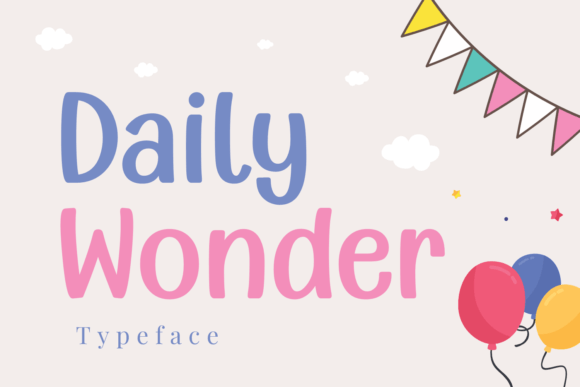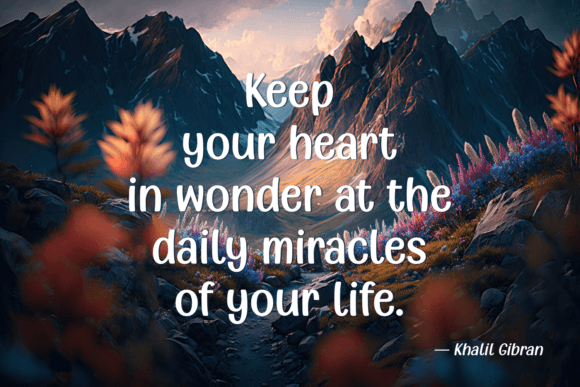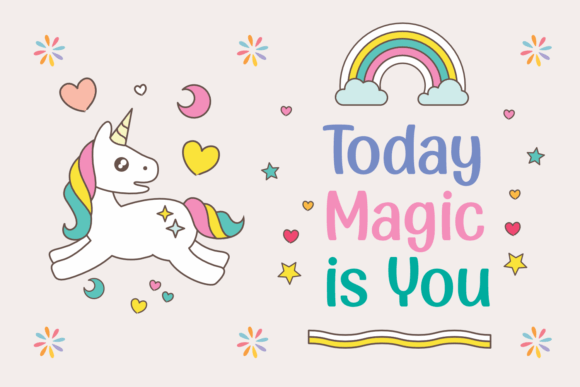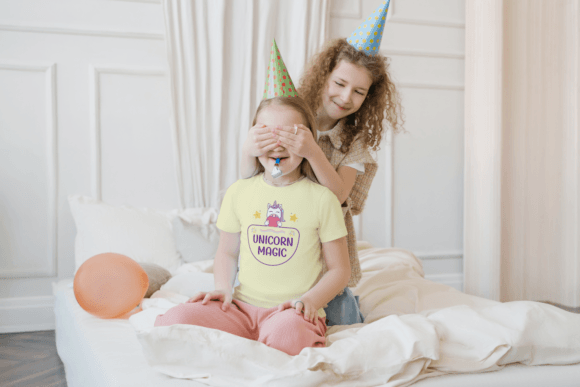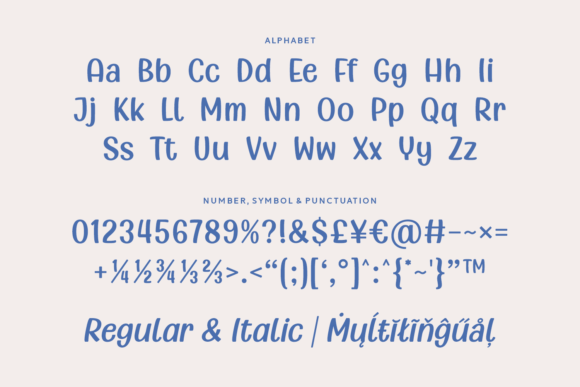
Daily Wonder Font
Daily Wonder feels playfully handmade. Use this font to add that special playful touch to any design idea you can think of! Masterfully designed to become a true favorite, this font has the potential to bring each of your creative ideas to the highest level!